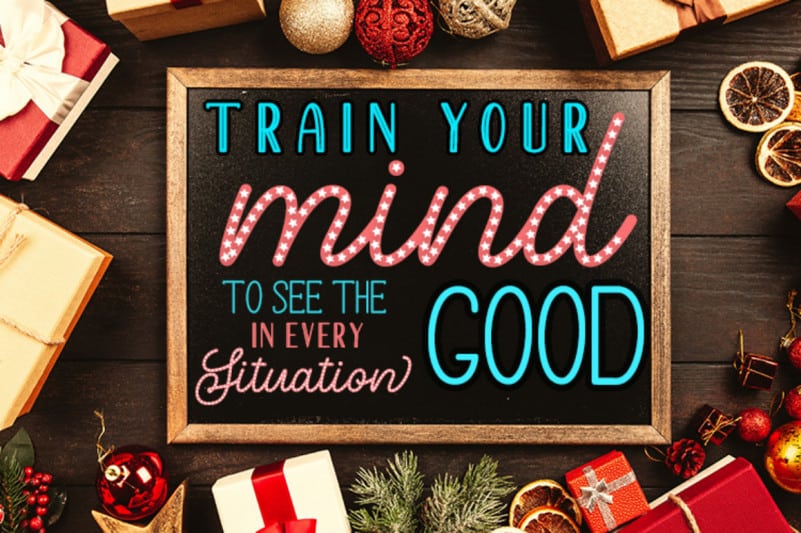
Santa Christmas – A Cute Holiday Font
Introducing new Santa Christmas Font
Santa Christmas font is a unique family font for chrismast event with star pattern. Santa Christmas Fonts Great for Poster, Tshirt Design, print project, social media post, and more